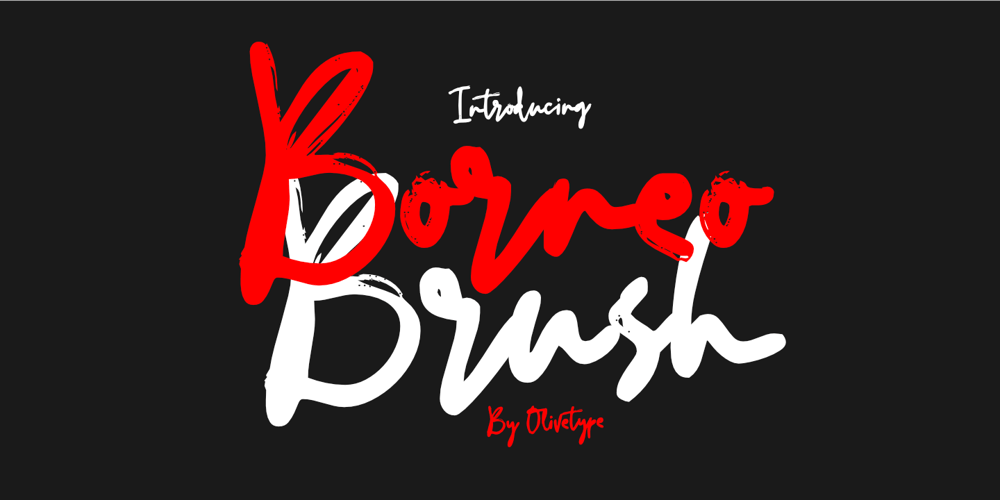
Borneo Brush Font Family was designed by Aldy Sidik, Nurul Hidayani and published by Olivetype. Borneo Brush contains 1 styles and family package options. Unleash your inner creativity with Borneo Brush Font – a dynamic brush script font for designers seeking an edge in their projects! The flow of the rough brush strokes creates an organic feel that resonates with audiences looking for something fresh and original. Enhance the visual impact of your content by incorporating this stylish script font into various design elements such as posters, websites, apparel, and more. Stand out from the crowd effortlessly by harnessing the expressive nature of Borneo Brush Font – get ready to turn heads and make a lasting impression wherever it’s seen!Borneo Brush features : Standard Latin Numbers, symbols, and punctuations Ligatures and swashes Multilingual Support Simple Installations Works on PC & Mac Thank You